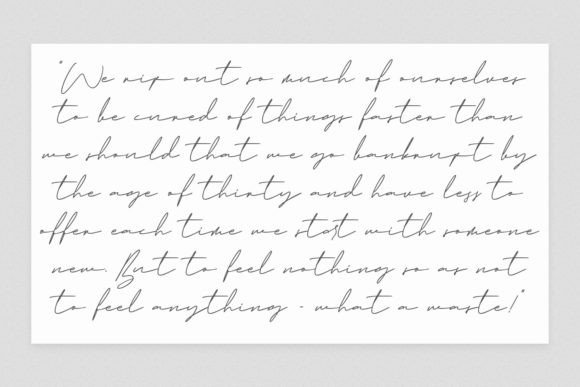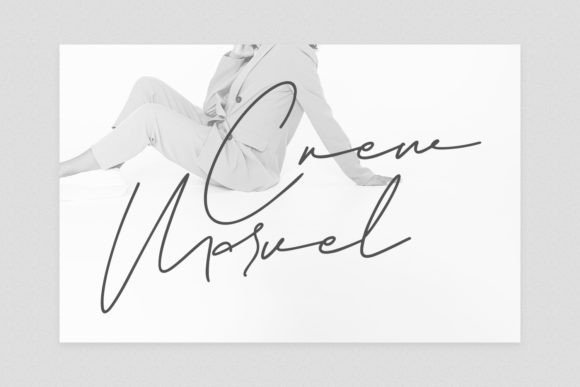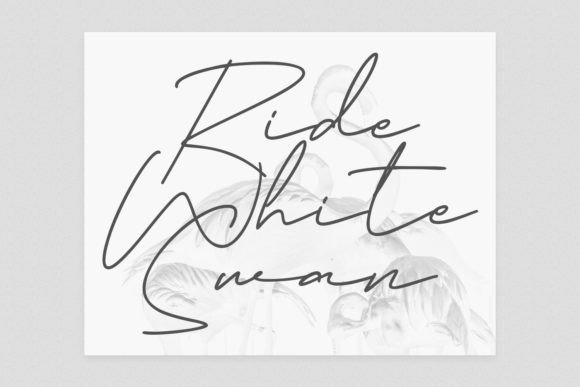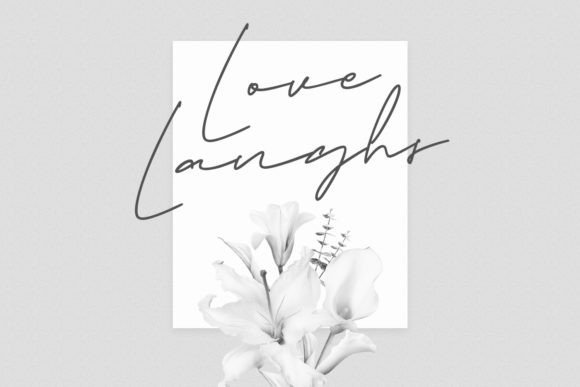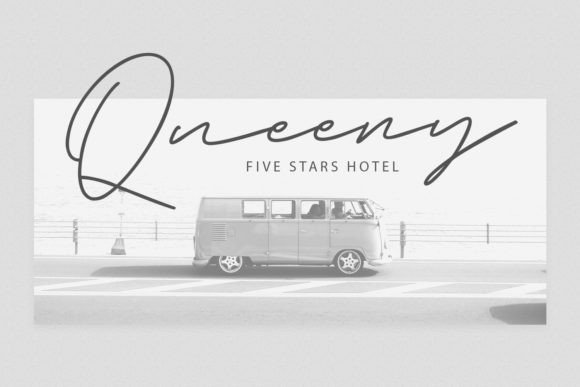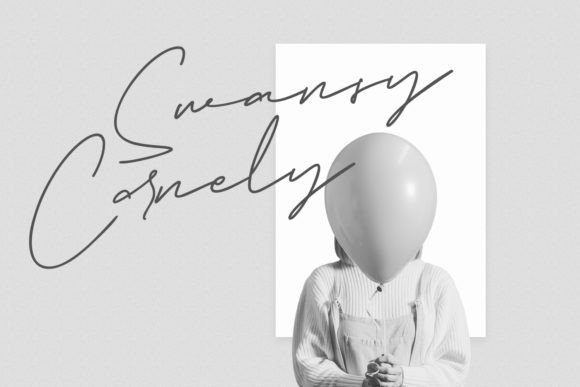
Introduction to Ovalweak Font
Ovalweak is a fancy signature script font that was carefully crafted to enhance a variety of projects.
This font can be used to write titles, invitations, letters, and many other types of products .